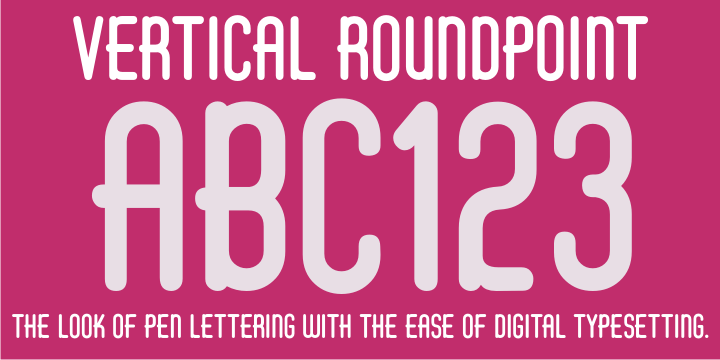
Vertical Roundpoint
Vertical Roundpoint JNL is one of a number of classic hand-lettered typefaces found in a 1941 edition of the Speedball® Lettering Pen instruction book and re-drawn digitally by Jeff Levine.